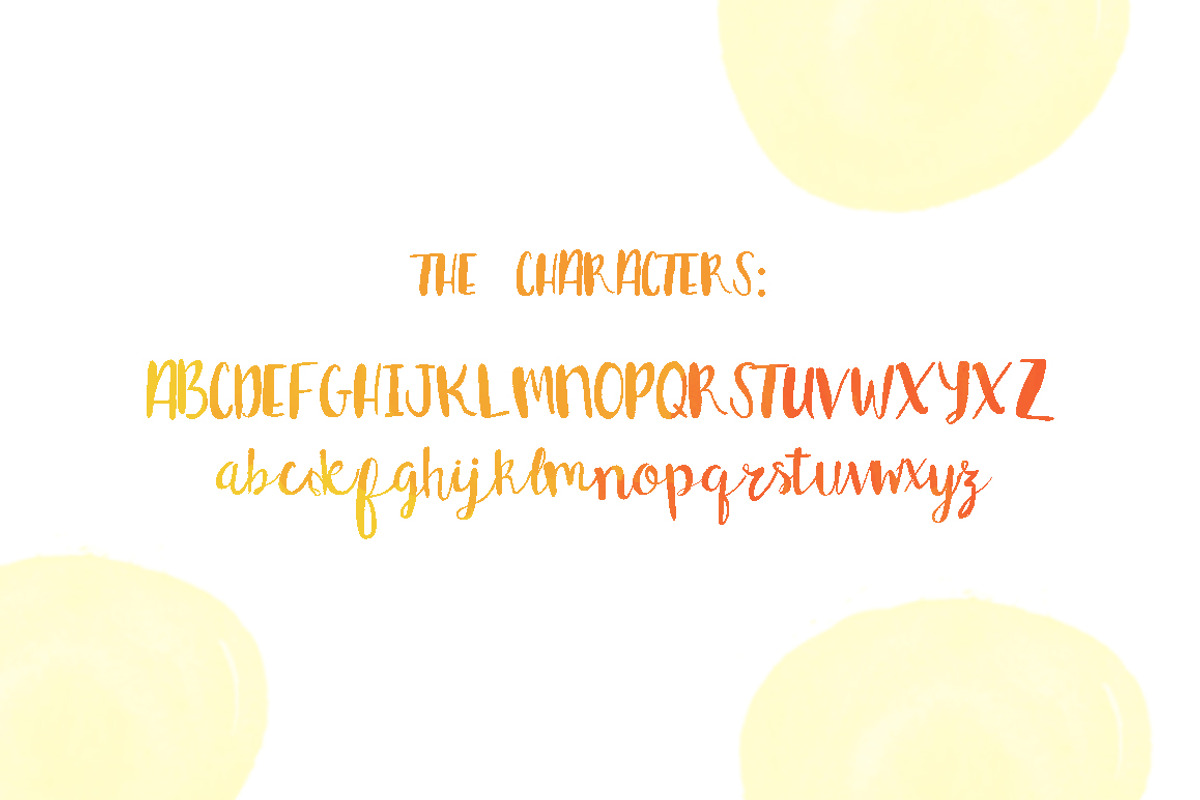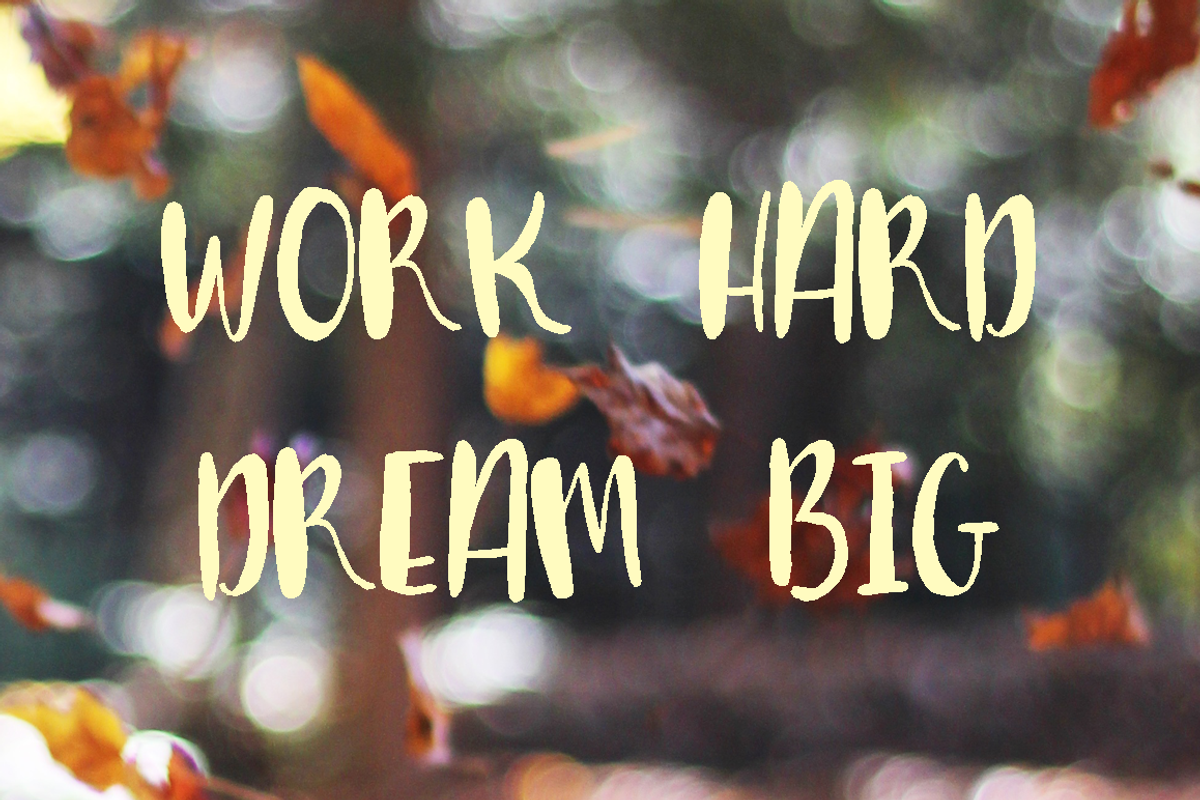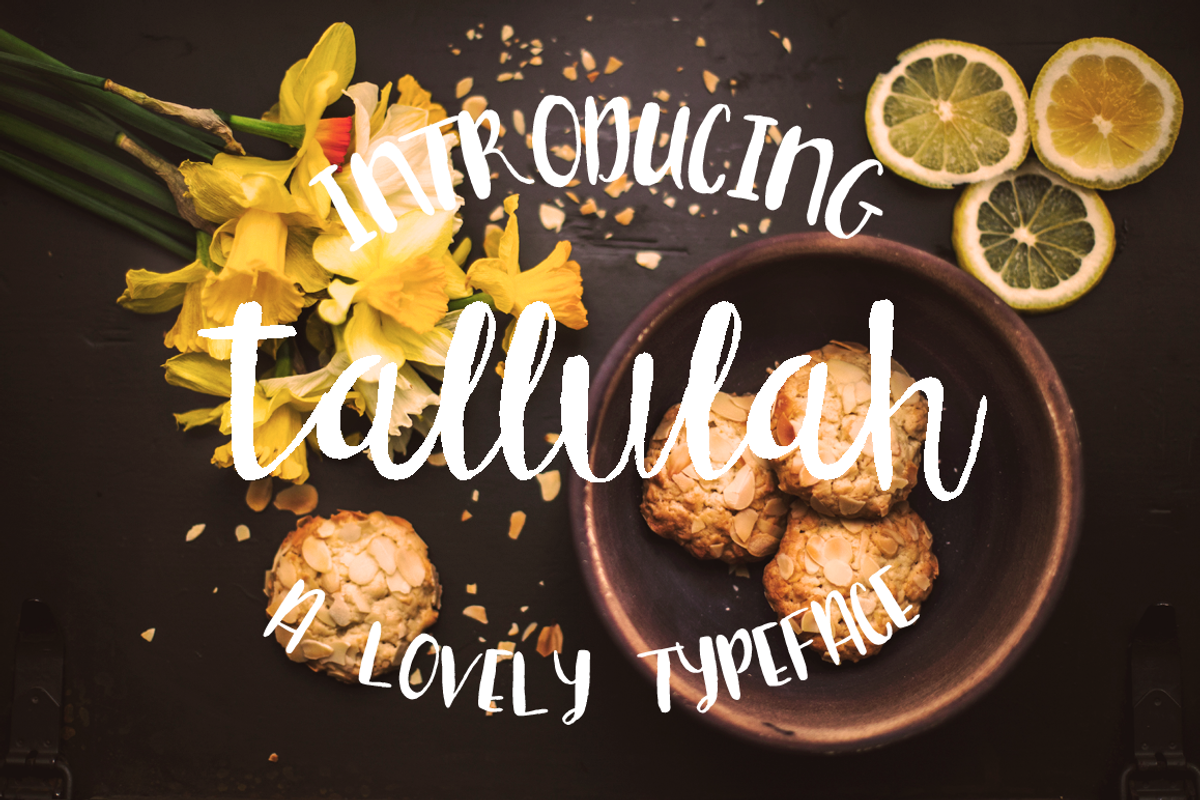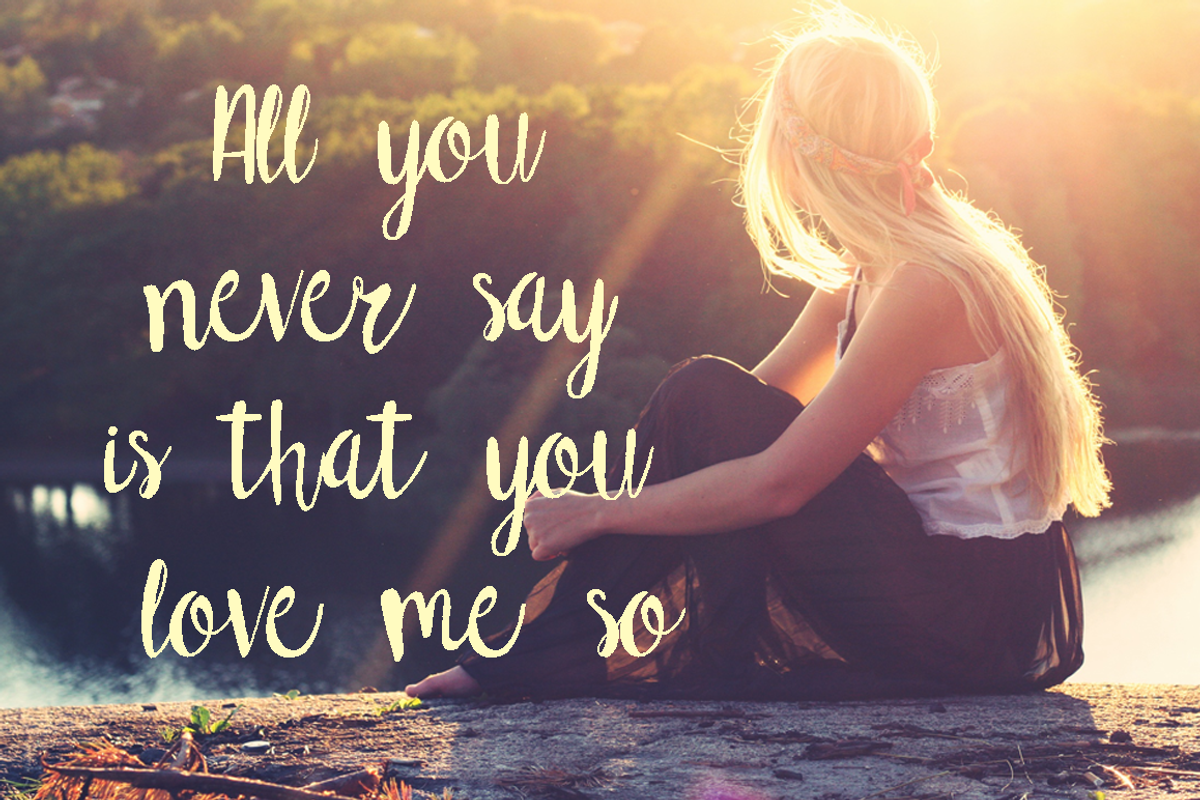
Tallulah Brush Font
Tallulah Brush Font by Lila Miller is a font selected for branding, posters, packaging, typography.
Why Tallulah Brush Font is worth a look
Tallulah Brush Font by Lila Miller fits naturally into Branding, posters, packaging, typography.